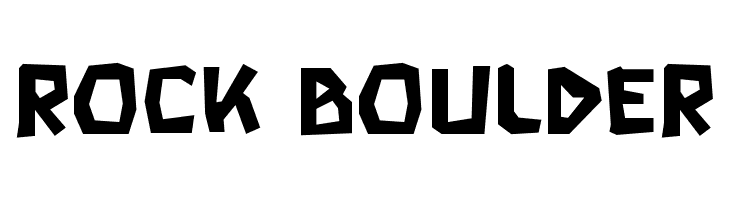
A bold, stone-like font with a rugged, 3D appearance.
( imagex - www.imagex-fonts.com )
A bold, angular font with a graffiti-inspired, dynamic style.
( imagex - www.imagex-fonts.com )
A rugged, cracked font with a bold, industrial style.
( weknow - Wino S Kadir - www.creativefabrica.com/designer/weknow/ )
A rugged, italicized font with a bold, jagged appearance.
( Dry Heaves - www.drybohnz.com/ )
Primitive, hand-drawn script with ancient inscription aesthetics.
( Fonts by Sudio Edo )
A bold, angular font with a rugged, geometric design.
( Fonts by Tokokoo Studio )
A bold, angular font with a rugged, rock-like appearance.